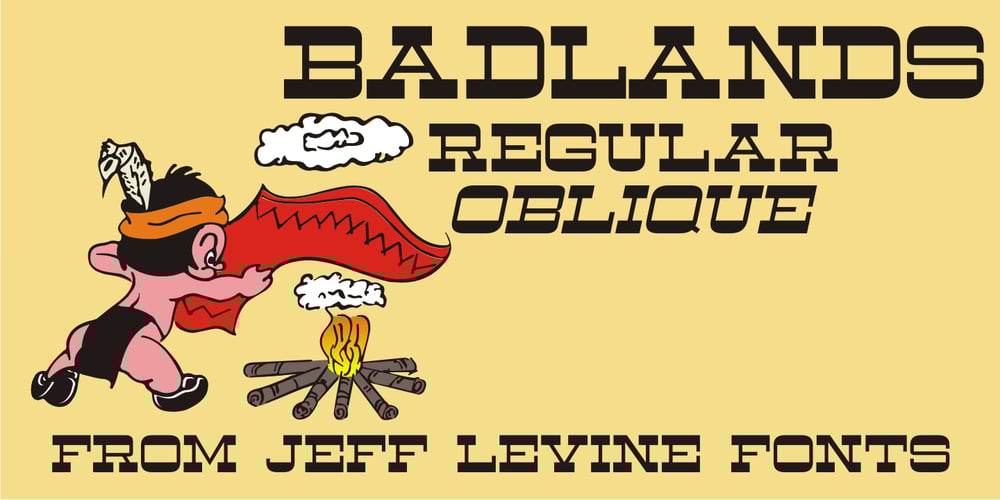
Badlands JNL
Badlands JNL font
Badlands JNL Font Family was designed by Jeff Levine and published by Jeff Levine. Badlands JNL contains 2 styles and family package options. A vintage piece of sheet music for “Waitin’ at the Gate for Katy” (from the 1934 movie “Bottoms Up”) provided the hand-lettered, Western-influenced lettering which is now available as Badlands JNL. Some of the characters originally had overly-thick vertical strokes which stood out from the rest of the letters, so they were “standardized” in order to provide a more aesthetically pleasing overall design. Available in both regular and oblique versions to fit your design needs.